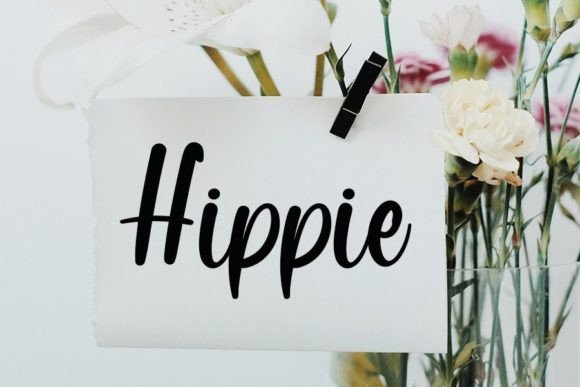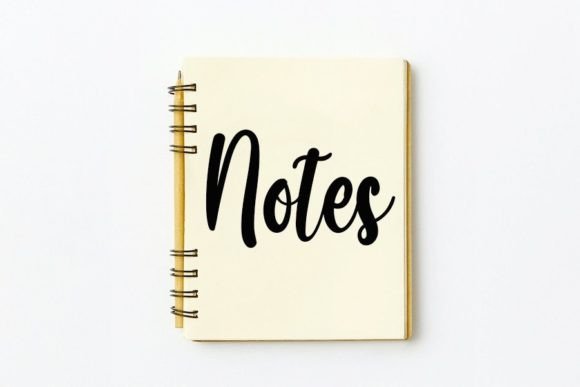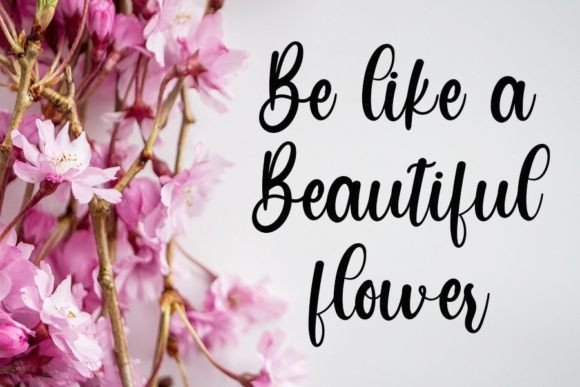
About Chicken Font
Chicken is a whimsical and delightful handwritten font that playfully combines a neat and beautiful style with an unexpected touch of elegance. Despite its name, this font is perfect for a variety of creative projects, inviting you to fall in love with its incredibly distinct and timeless style. Use Chicken to add a touch of humor and charm to your designs, creating spectacular and lighthearted visuals.
The neat and beautiful handwritten style of Chicken adds a sense of order and clarity to your text, making it suitable for projects that require a balance between playfulness and elegance. Its unexpected combination of neatness and whimsy makes it a unique and versatile choice.
Whether applied to branding, invitations, or any design endeavor, Chicken’s distinct and timeless style adds an element of surprise to your favorite projects. The font’s playful charm makes it suitable for a range of applications, allowing it to stand out with its unexpected yet delightful aesthetic.
In branding projects, Chicken can bring a sense of personality and humor to your visual identity. Its unexpected touch of elegance adds a playful twist, making it suitable for creative ventures or any brand that wants to convey a lighthearted spirit.
In invitations, Chicken can infuse a sense of joy and whimsy into the design. Whether used for casual events, celebrations, or projects that celebrate creativity, the font’s distinctive style creates a visually spectacular and memorable impact.
The combination of distinct and timeless elements in Chicken ensures that it remains an engaging and surprising choice for a variety of design applications. Its neat and beautiful handwritten aesthetic, paired with a touch of humor, makes it a delightful font for your creative projects.
In summary, Chicken is more than just a font; it’s a design tool that adds a unique touch of whimsy and elegance to your favorite projects. Whether applied to branding, invitations, or any creative endeavor, this font’s playful and distinct style makes it a charming choice for creating spectacular and visually engaging designs.